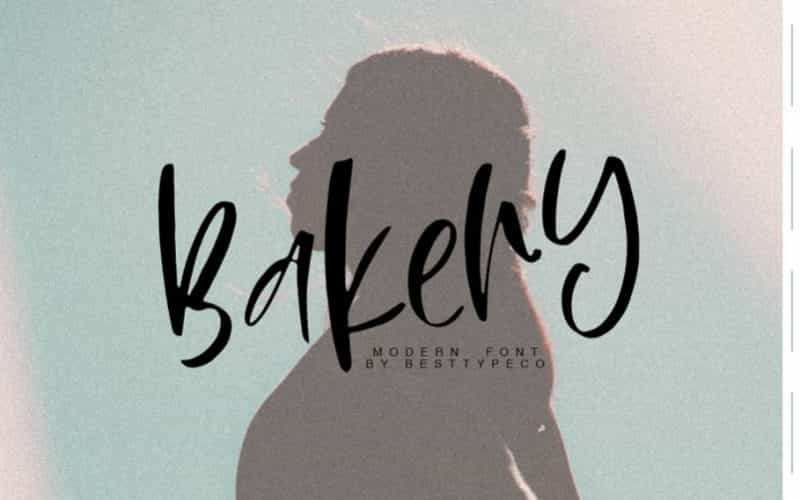
Bakery– fresh handmade calligraphy. very suitable for greeting cards, branding materials, business cards, quotes, posters, and more! this font is perfect for a wedding postcard. Or you can make perfect and unique design of your logo blog, stationery, marketing, magazines and more